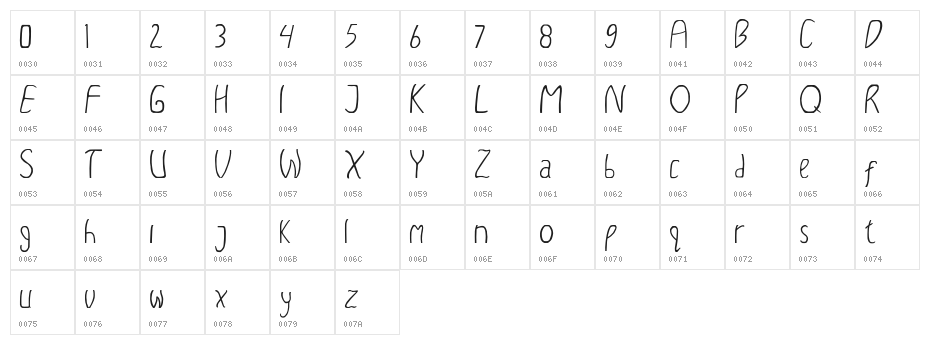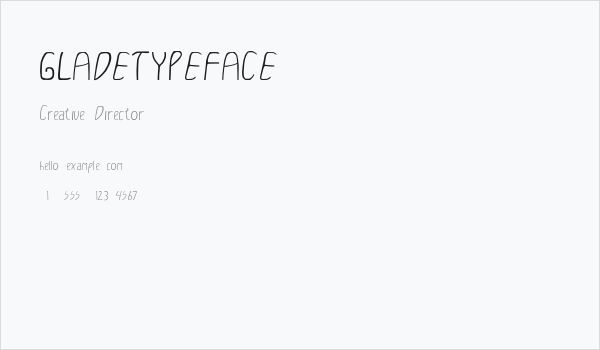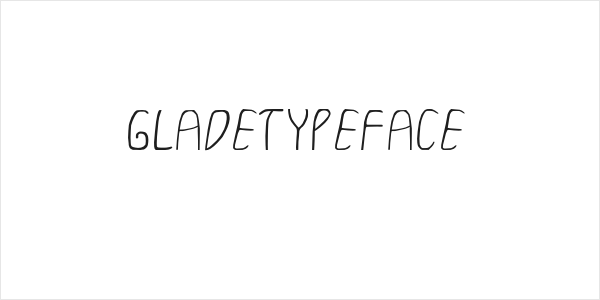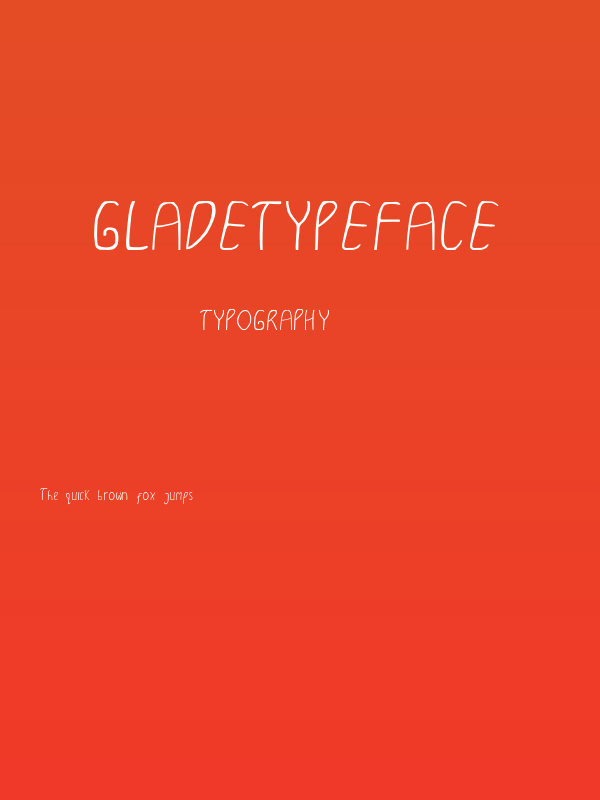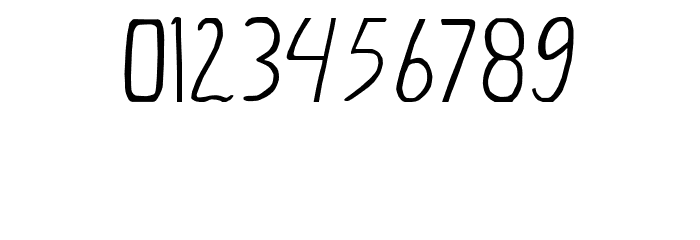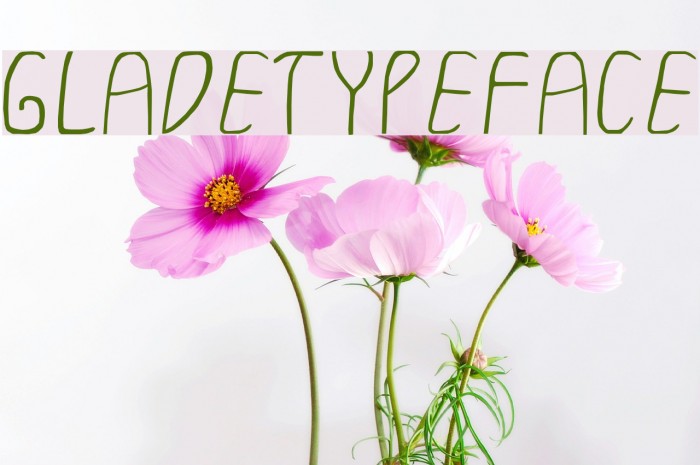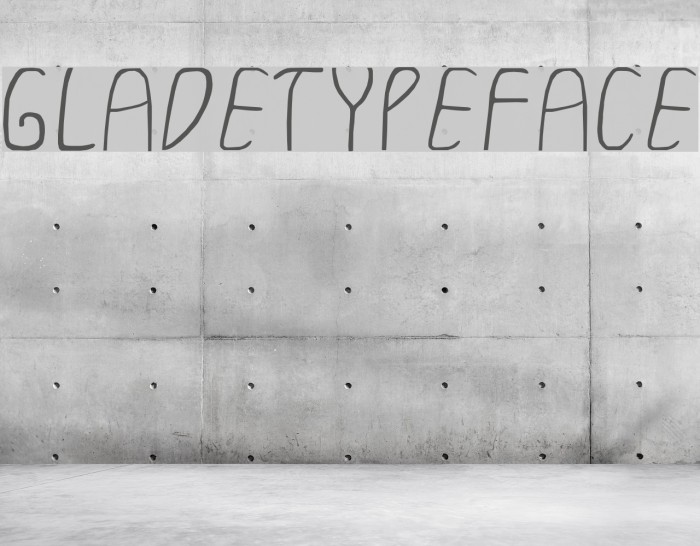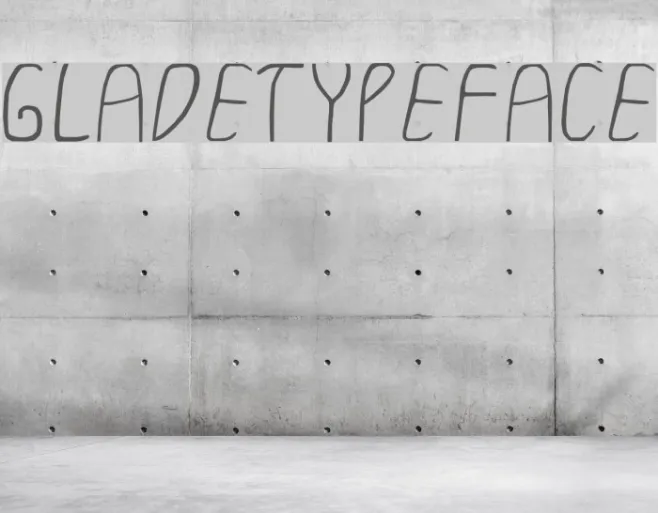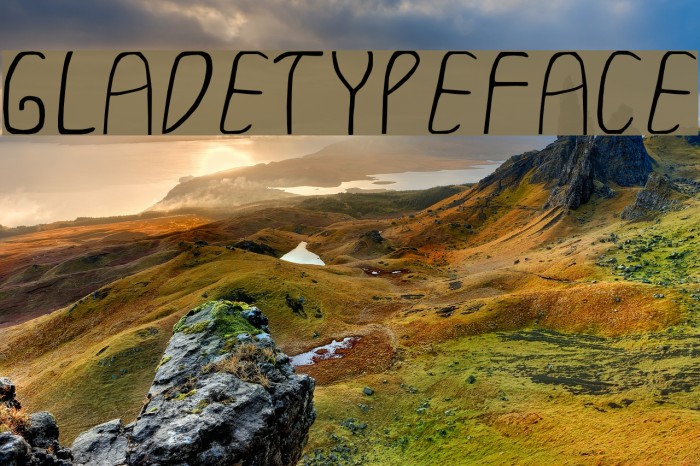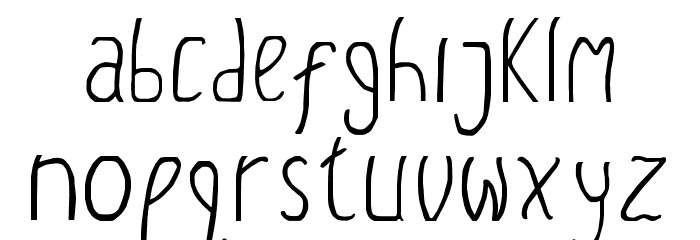
GLADETYPEFACE Font
GLADETYPEFACE Description
This font features a playful, handwritten style with a casual and approachable feel. The characters are slightly irregular, giving it a unique and personal touch. The strokes are consistent in thickness, providing a uniform appearance across all letters and numbers. The uppercase and lowercase letters maintain a cohesive style, with rounded edges and a slight tilt that adds to its charm. The numerals are clear and easy to read, matching the overall aesthetic. This font is versatile, suitable for projects that require a friendly and informal tone.
| Proposed Projects | Ideal for greeting cards, children's books, casual branding, and personal blogs. |